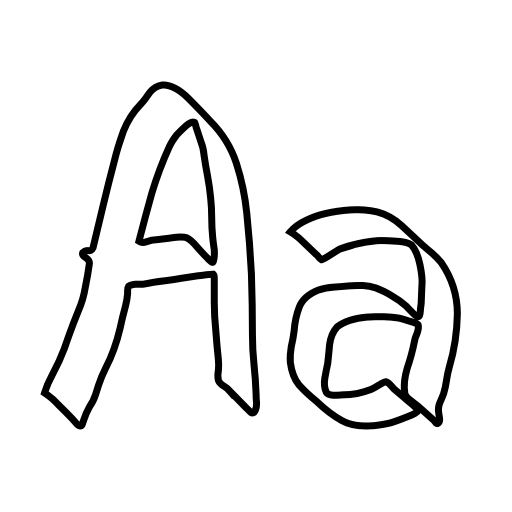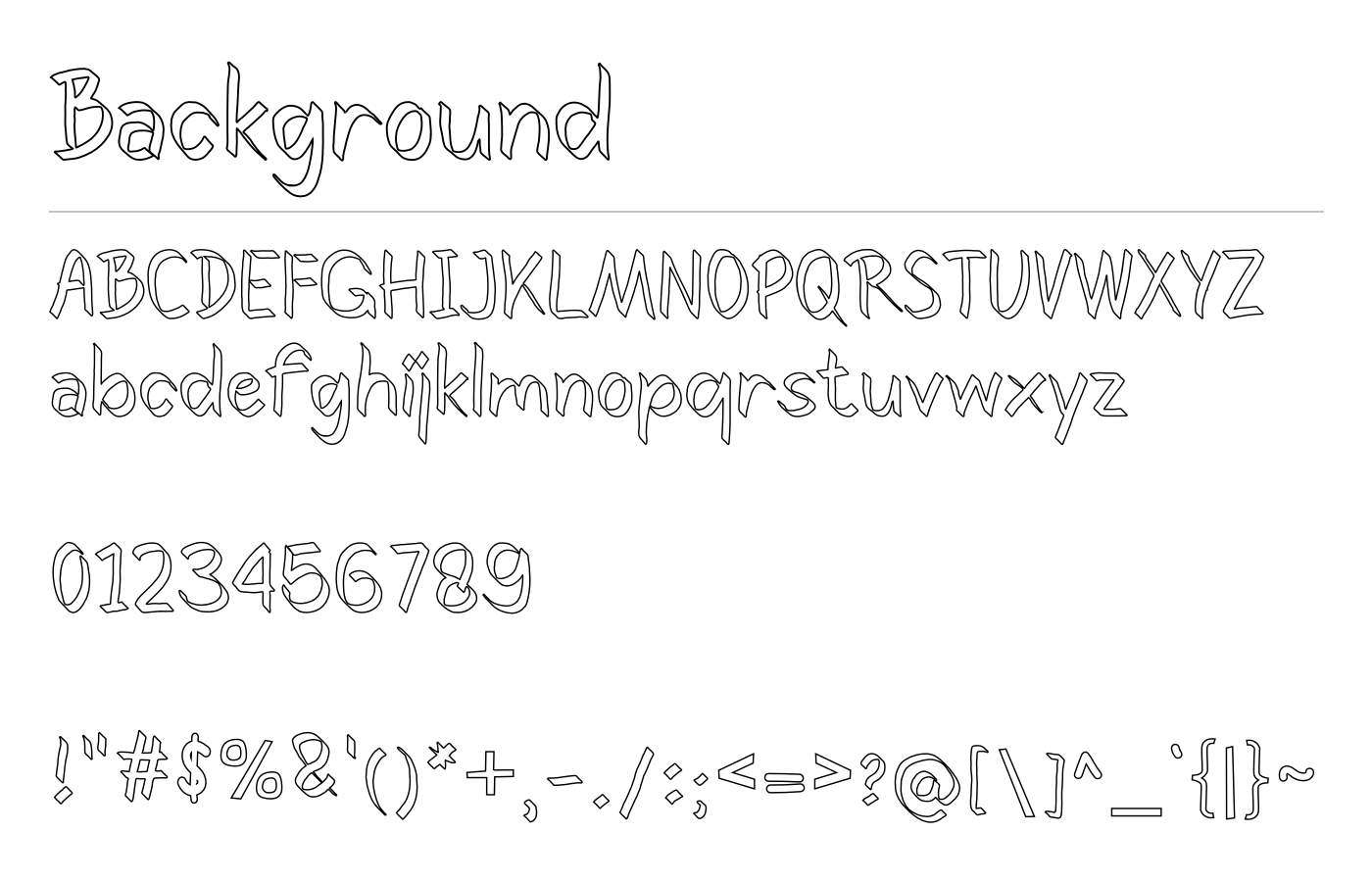
Background Font is a casual, hand-drawn sans serif typeface with a playful and informal style. Its uneven lines and quirky letterforms give it a friendly, approachable feel, making it ideal for creative projects, children's materials, and fun branding that seeks a personal, lively touch. This font works best in headlines, logos, or any design needing a hand-crafted, whimsical vibe.
Background Font
About Background Font